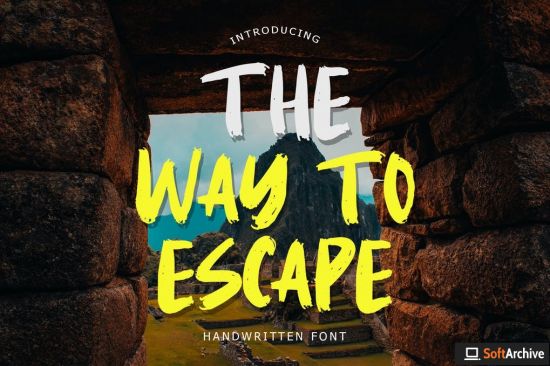
DesignOptimal - The Way To Escape Handwritten Brush Font
** The Way To Escape** Handwritten Brush Font is handwritten font with brush style. This font perfect for branding projects, logo, tshirt designs, social media posts, advertisements, product packaging, product designs, label, watermark, invitation, stationery and any projects